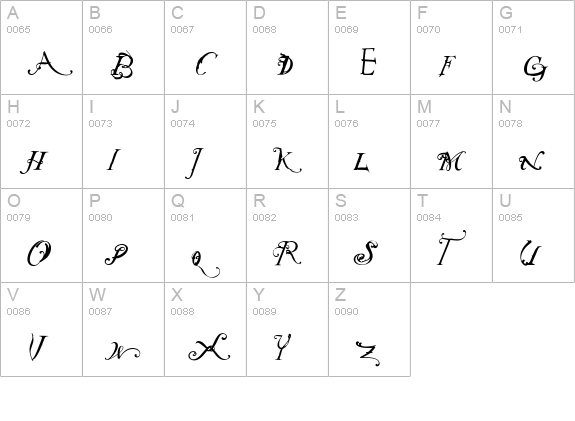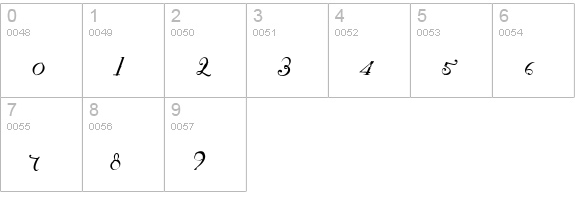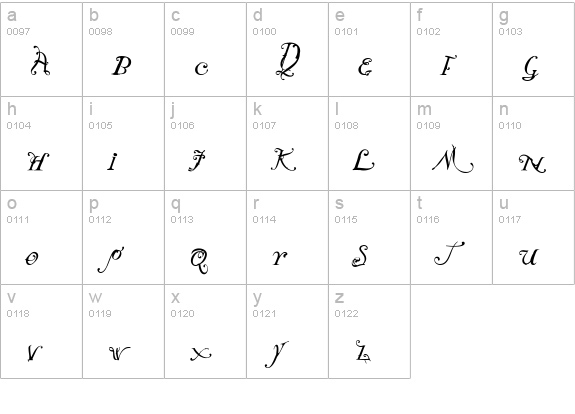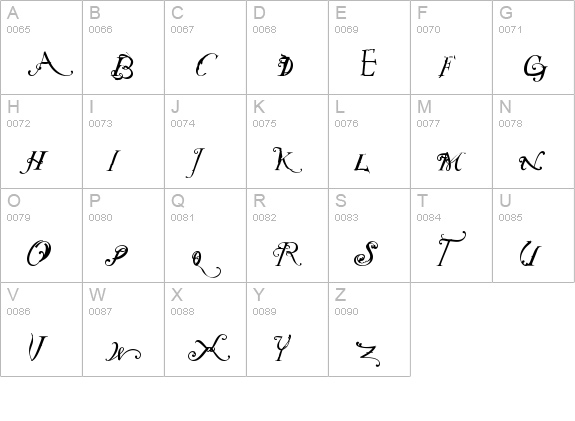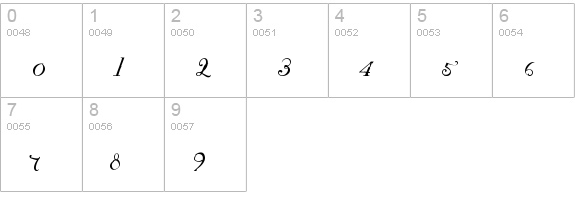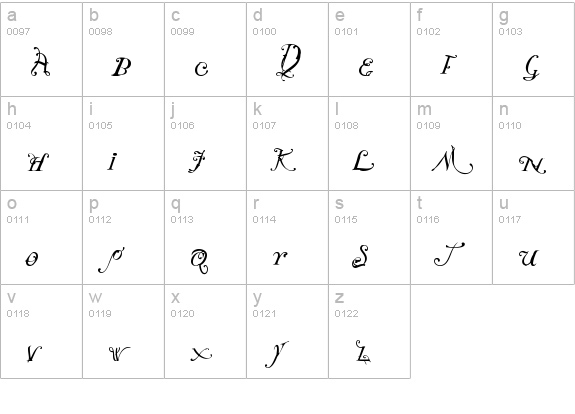
NotCaslonOne Font Details
Introducing NotCaslonOne font - a versatile typeface that combines classic elegance with a modern twist. With its clean lines and distinctive serifs, NotCaslonOne is perfect for a wide range of design projects, from branding to editorial layouts. This font offers a unique blend of sophistication and readability, making it an excellent choice for both print and digital applications. Whether you're creating a sleek logo or designing a stylish website, NotCaslonOne has you covered. And the best part? NotCaslonOne is completely free to download at FontsMarket.com. That's right - you can access this stunning font at no cost, making it a must-have addition to your font collection. Don't miss out on the opportunity to elevate your designs with the timeless beauty of NotCaslonOne. Download it today and see the difference it can make in your creative projects.